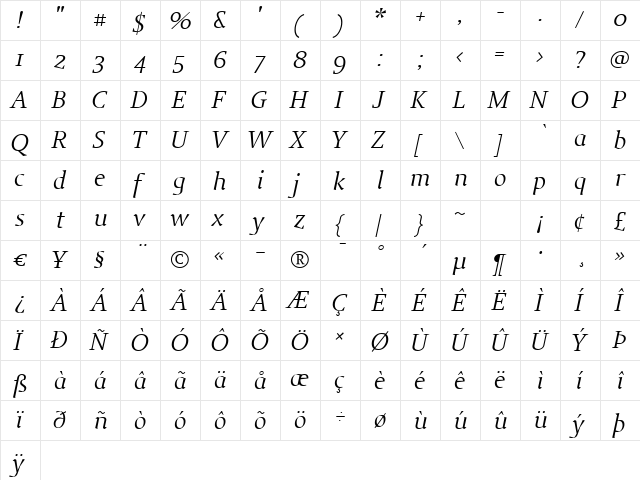
JudeLightItalic Regular Font Preview
JudeLightItalic Regular
JudeLightItalic Regular Font Details
Design Context for JudeLightItalic Typeface
JudeLightItalic offers clean, dependable letterforms without strong stylistic allegiance, making it a practical choice for designers who need flexibility. The slanted form adds forward momentum and visual energy. Its slender proportions lend an understated elegance to any composition.